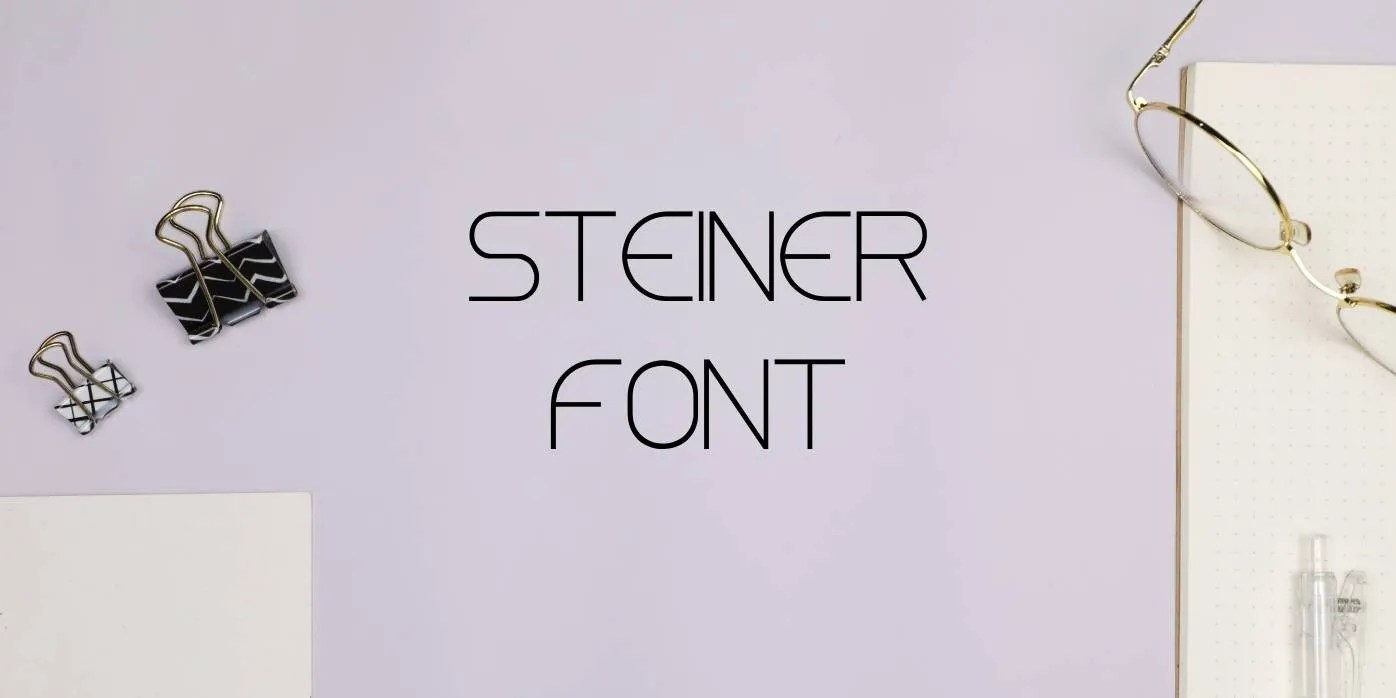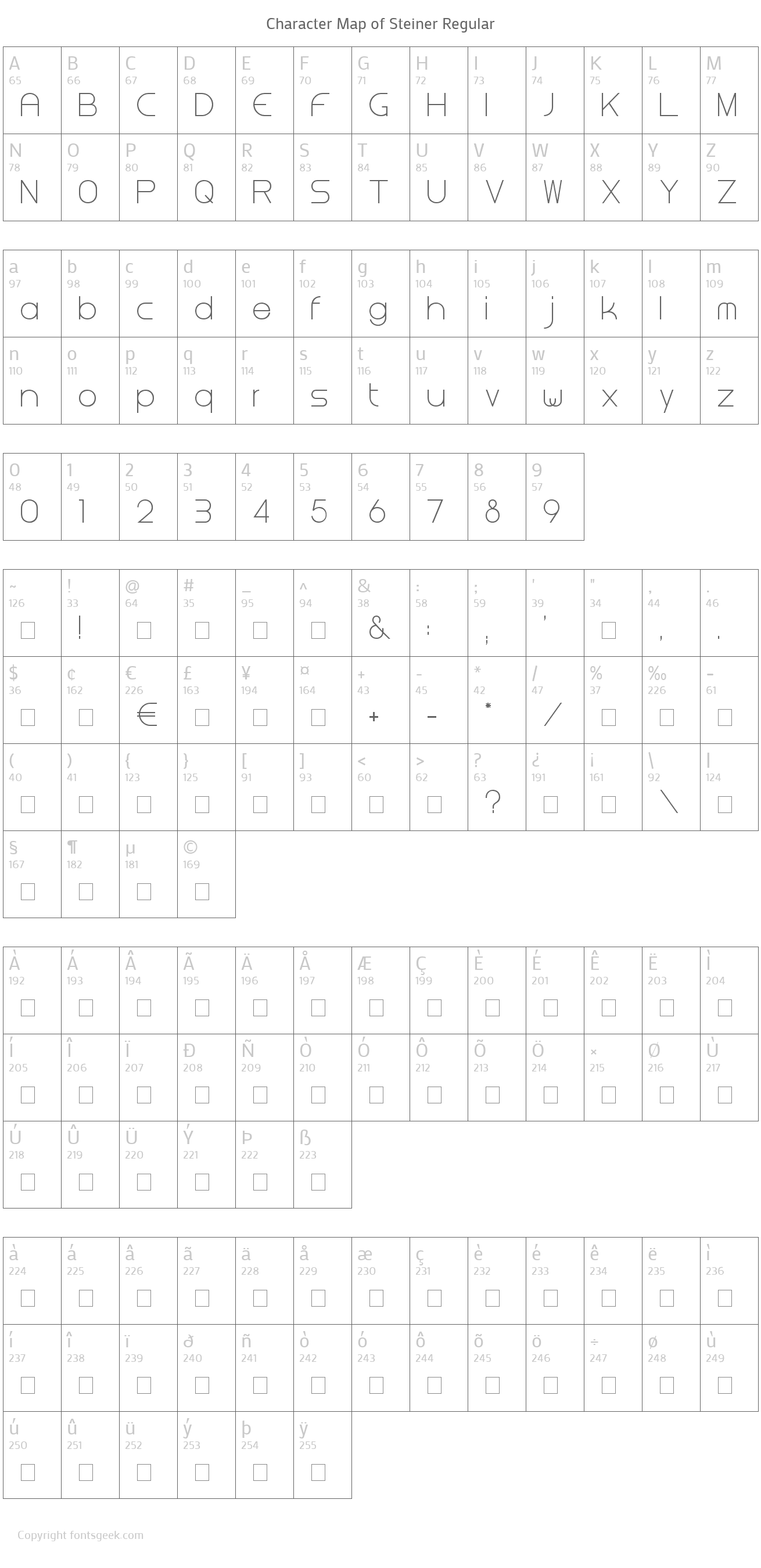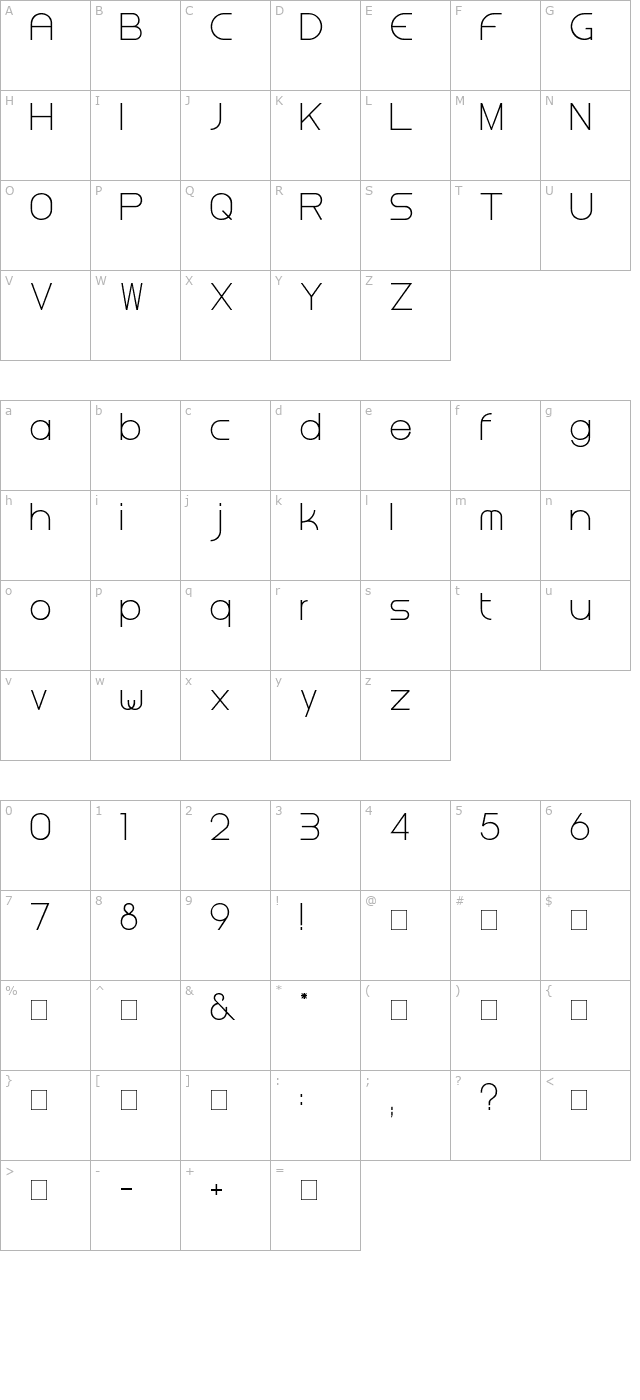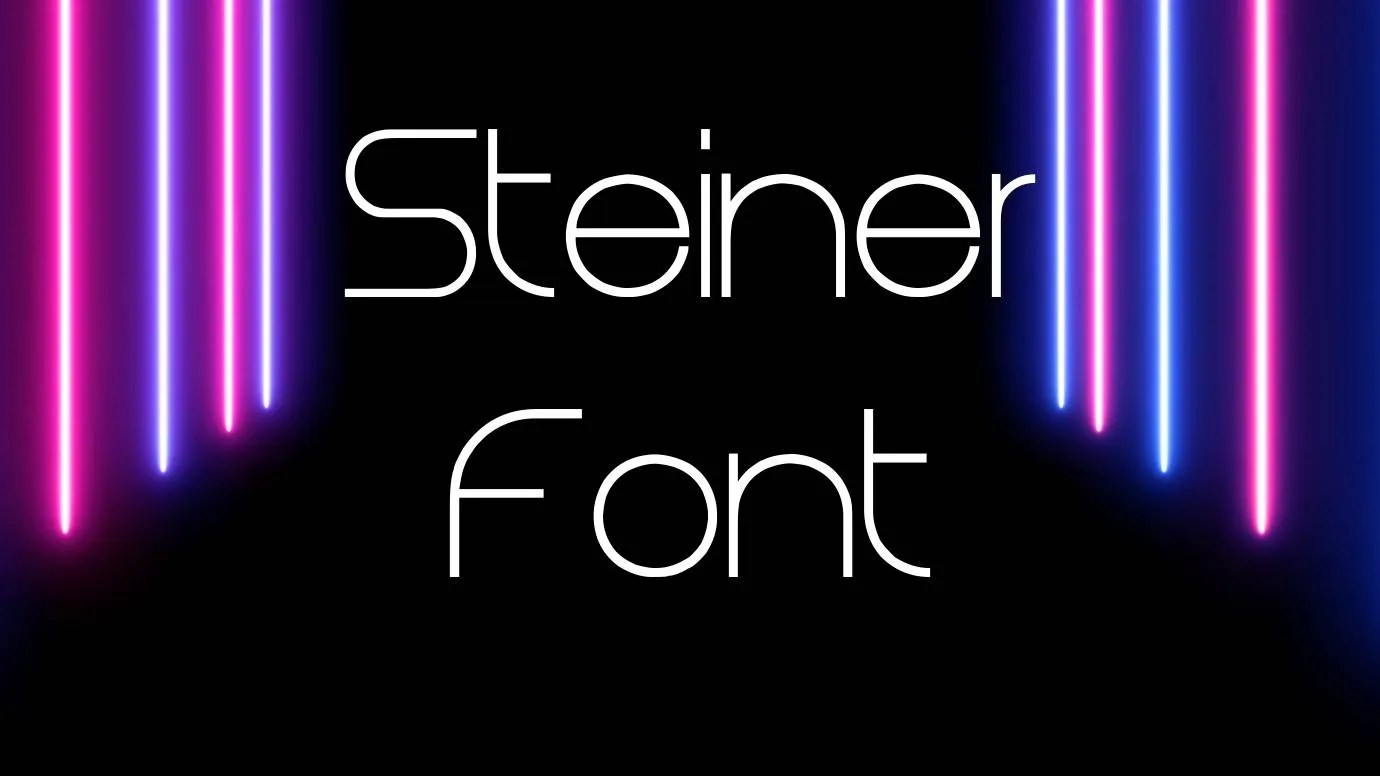
A digital revival of peter steiner’s swing (berthold, 1974). Steiner special comes in all popular font formats, and offers a full range of latin support, including western, eastern and central european languages, as well as baltic,. It's free both for personal and. Download steiner regular for free. Free download of steiner font. View sample text, character map, user rating and review for steiner regular. See how to download steiner. A great choice for highlighting your design elements. This typeface is ideal for logos and general design. Steiner special font free download.
Steiner Regular truetype font Steiner Special Regular Font Free Download See how to download steiner. Steiner special download is available free from. A great choice for highlighting your design elements. Free download of steiner font. It's free both for personal and. View sample text, character map, user rating and review for steiner regular. A digital revival of peter steiner’s swing (berthold, 1974). This typeface is ideal for logos and general. Steiner Special Regular Font Free Download.
Steiner Font Free Download Steiner Special Regular Font Free Download Steiner special font free download. See how to download steiner. View sample text, character map, user rating and review for steiner regular. It's free both for personal and. This typeface is ideal for logos and general design. Download the steiner special font for mac or windows in opentype, truetype or postscrip. A digital revival of peter steiner’s swing (berthold, 1974).. Steiner Special Regular Font Free Download.
Steiner Schriftart kostenloser Download des Font und Übersicht über die Schrift Schriftarten Steiner Special Regular Font Free Download A digital revival of peter steiner’s swing (berthold, 1974). Download steiner regular for free. It's free both for personal and. Steiner special download is available free from. Steiner special comes in all popular font formats, and offers a full range of latin support, including western, eastern and central european languages, as well as baltic,. Steiner special font free download. This. Steiner Special Regular Font Free Download.
Steiner font by Gabriele Magurno FontRiver Steiner Special Regular Font Free Download Steiner special download is available free from. Download the steiner special font for mac or windows in opentype, truetype or postscrip. Steiner special font free download. Free download of steiner font. See how to download steiner. A great choice for highlighting your design elements. Steiner special comes in all popular font formats, and offers a full range of latin support,. Steiner Special Regular Font Free Download.
Steiner Font Steiner Special Regular Font Free Download This typeface is ideal for logos and general design. Download steiner regular for free. A great choice for highlighting your design elements. Steiner special download is available free from. Free download of steiner font. Steiner special font free download. Steiner special comes in all popular font formats, and offers a full range of latin support, including western, eastern and central. Steiner Special Regular Font Free Download.